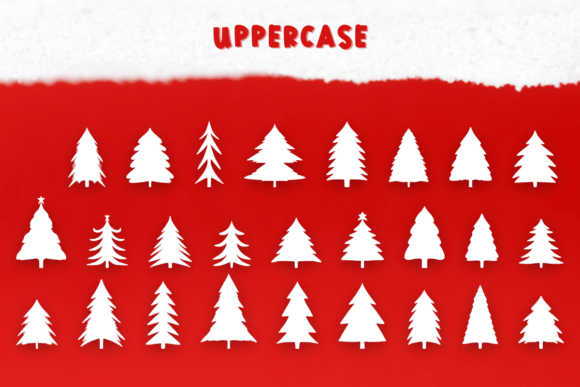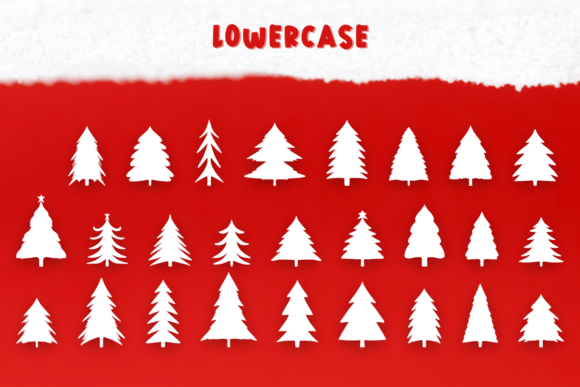
Deck the Halls with the Festive Christmas Tree Font
As the holiday season approaches, designers and crafters are on the lookout for unique and festive elements to add to their projects. One of the most iconic symbols of Christmas is the Christmas tree, and what better way to incorporate it into your designs than with a custom font? Introducing the Christmas Tree Font, a delightful collection of 26 hand-drawn Christmas trees in one font. This versatile font is sure to become a wonderful asset to your font library, elevating the quality of any creation.
A Font that’s a Cut Above the Rest
The Christmas Tree Font is a carefully crafted collection of 26 unique Christmas tree designs, each one meticulously hand-drawn to ensure a charming and rustic feel. The font is perfect for a wide range of projects, from holiday cards and invitations to festive packaging and decorations. Whether you’re a designer, crafter, or DIY enthusiast, this font is sure to inspire your creativity and add a touch of festive flair to your work.
Endless Possibilities
One of the best things about the Christmas Tree Font is its incredible versatility. With 26 different tree designs to choose from, you can use the font to create a wide range of projects, from simple and elegant to complex and playful. Here are just a few ideas to get you started:
- Holiday cards and invitations: Use the Christmas Tree Font to create custom cards and invitations that will make your loved ones feel special.
- Festive packaging: Add a touch of holiday cheer to your packaging with custom labels and tags featuring the Christmas Tree Font.
- Decorations: Use the font to create custom decorations, such as garlands, banners, and signs, to add a festive touch to your home or office.
- Digital projects: Incorporate the Christmas Tree Font into your digital projects, such as social media graphics, blog posts, and email newsletters, to add a touch of holiday magic.
Why Choose the Christmas Tree Font?
So why choose the Christmas Tree Font over other festive fonts on the market? Here are just a few reasons:
- Unique and hand-drawn: Each of the 26 tree designs in the Christmas Tree Font is carefully hand-drawn, giving the font a charming and rustic feel that’s hard to find in digital fonts.
- Versatile: The font is perfect for a wide range of projects, from holiday cards and invitations to festive packaging and decorations.
- High-quality: The font is created with high-quality graphics, ensuring that it will look great even at large sizes.
Tips for Using the Christmas Tree Font
Here are a few tips for getting the most out of the Christmas Tree Font:
- Experiment with different tree designs: With 26 different tree designs to choose from, don’t be afraid to experiment and find the one that works best for your project.
- Mix and match: Combine the Christmas Tree Font with other festive fonts and graphics to create a unique and eye-catching design.
- Pay attention to color: Choose colors that complement the festive feel of the font, such as red and green, gold and silver, or blue and white.
- Have fun: Most importantly, have fun and be creative! The Christmas Tree Font is a versatile tool that’s meant to inspire your creativity and add a touch of festive flair to your projects.
The Christmas Tree Font is a unique and versatile font that’s sure to become a valuable asset to your font library. With its 26 hand-drawn Christmas tree designs, this font is perfect for a wide range of projects, from holiday cards and invitations to festive packaging and decorations. Whether you’re a designer, crafter, or DIY enthusiast, the Christmas Tree Font is a must-have for anyone looking to add a touch of festive flair to their work. So why wait? Download the Christmas Tree Font today and start creating your own festive masterpieces!